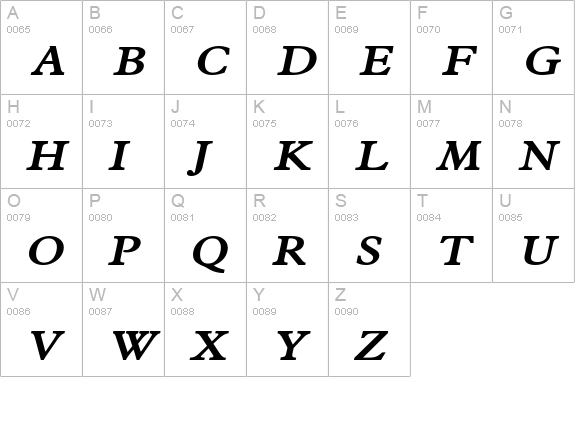
Nadine Wide BoldItalic is a distinctive, extended-width variant in the Nadine typeface family \xE2\x80\x94 well suited to design and typography projects.
Introducing Nadine Wide BoldItalic font, a striking and versatile typeface perfect for adding a touch of sophistication and modernity to your projects. This font features a bold and italic style with wide letterforms, making it stand out and grab attention effortlessly. Nadine Wide BoldItalic is ideal for a wide range of design applications, from branding and advertising to packaging and web design. Its elegant curves and sharp angles create a strong visual impact, making it a popular choice among designers looking to make a statement. The best part? Nadine Wide BoldItalic font is available for free download at FontsMarket.com, allowing you to easily access and use this stylish typeface in your projects without any cost. Don't miss out on the opportunity to enhance your designs with the unique charm of Nadine Wide BoldItalic font.